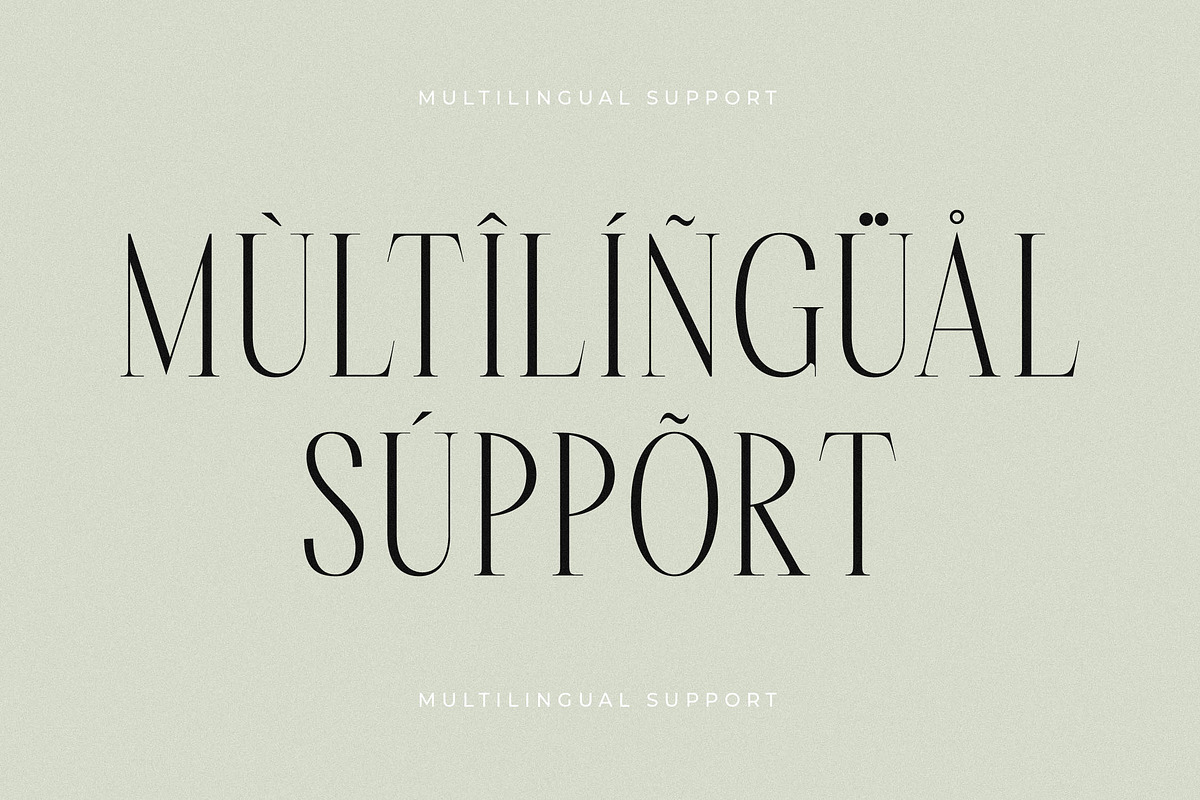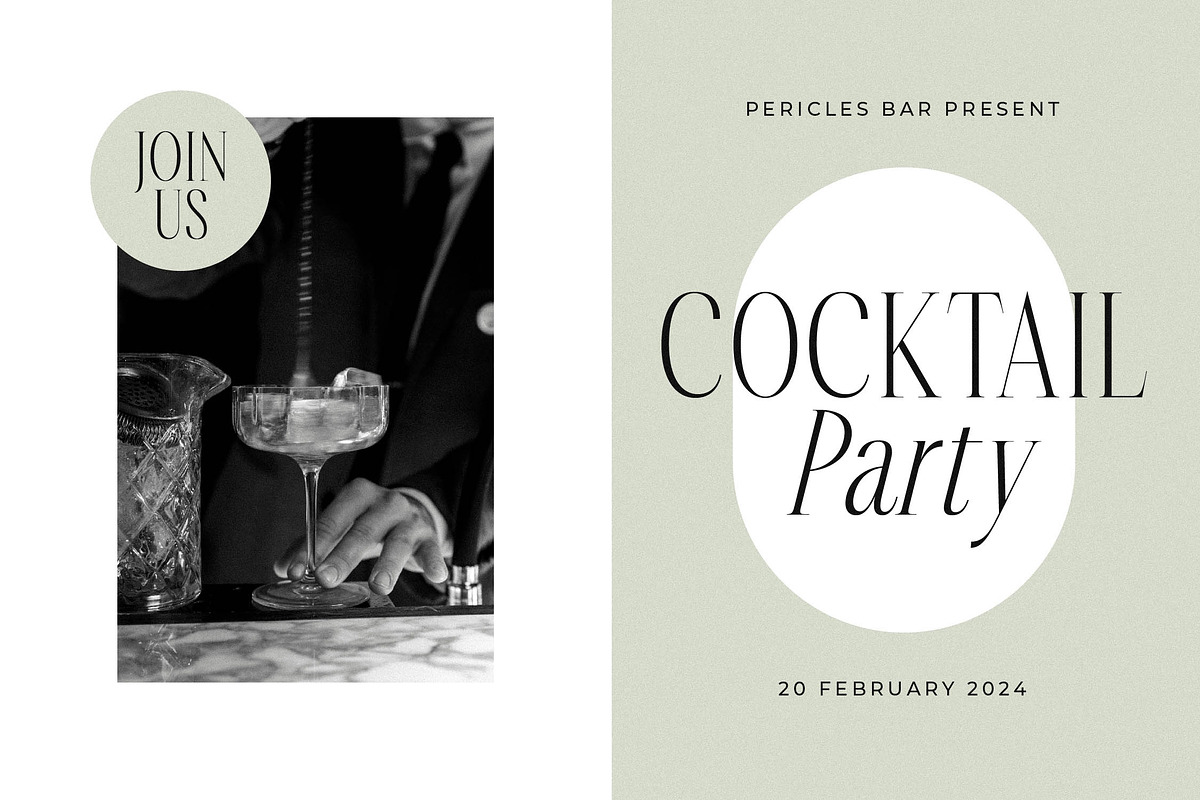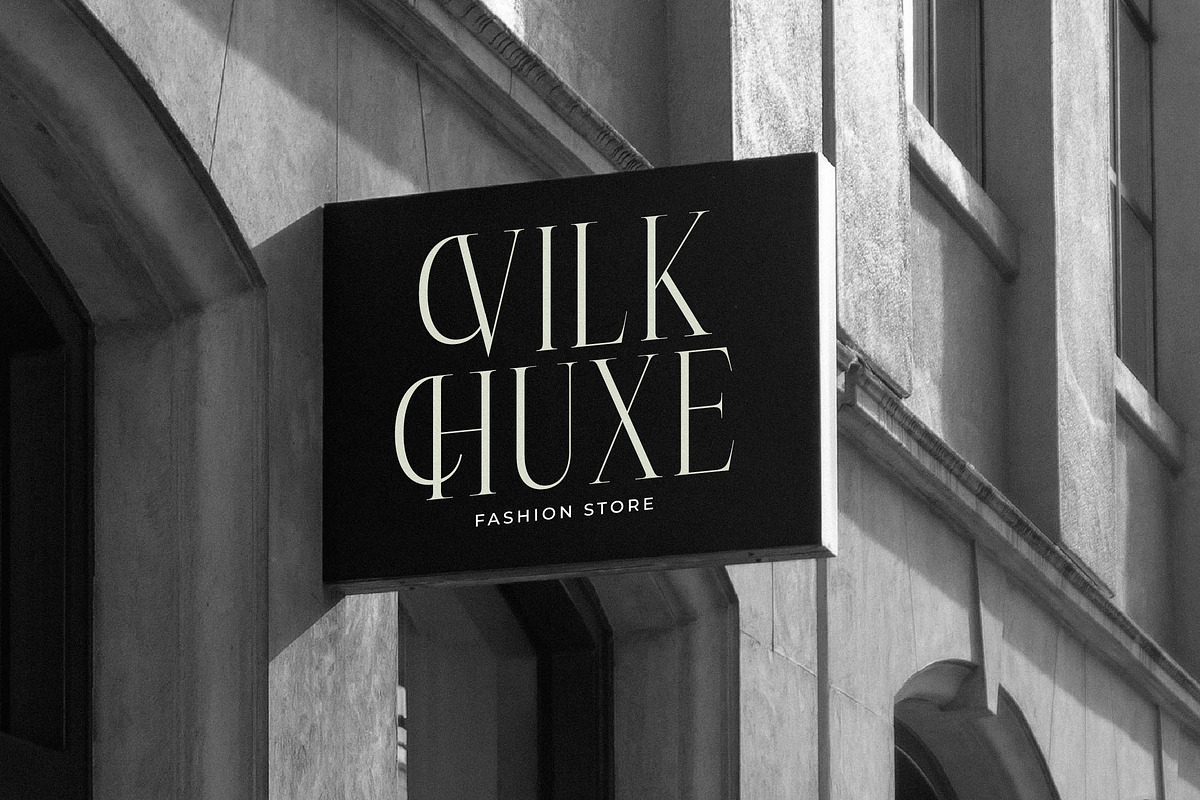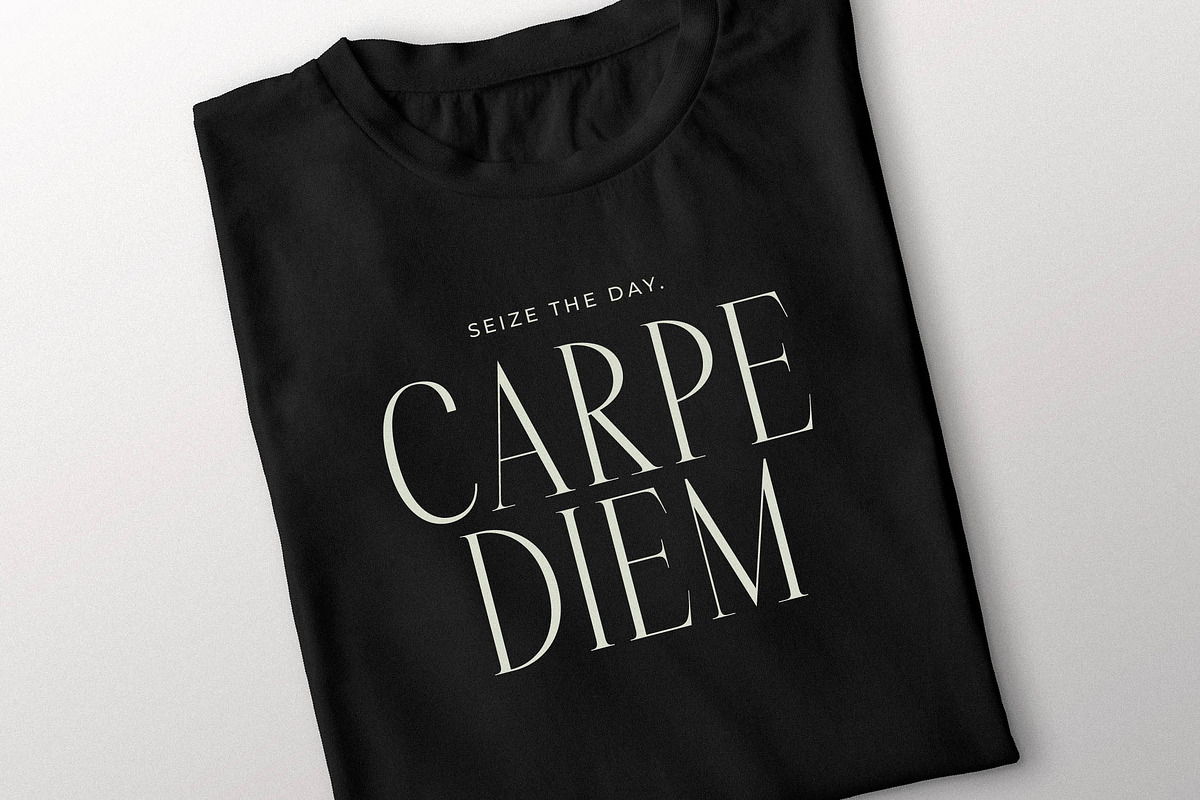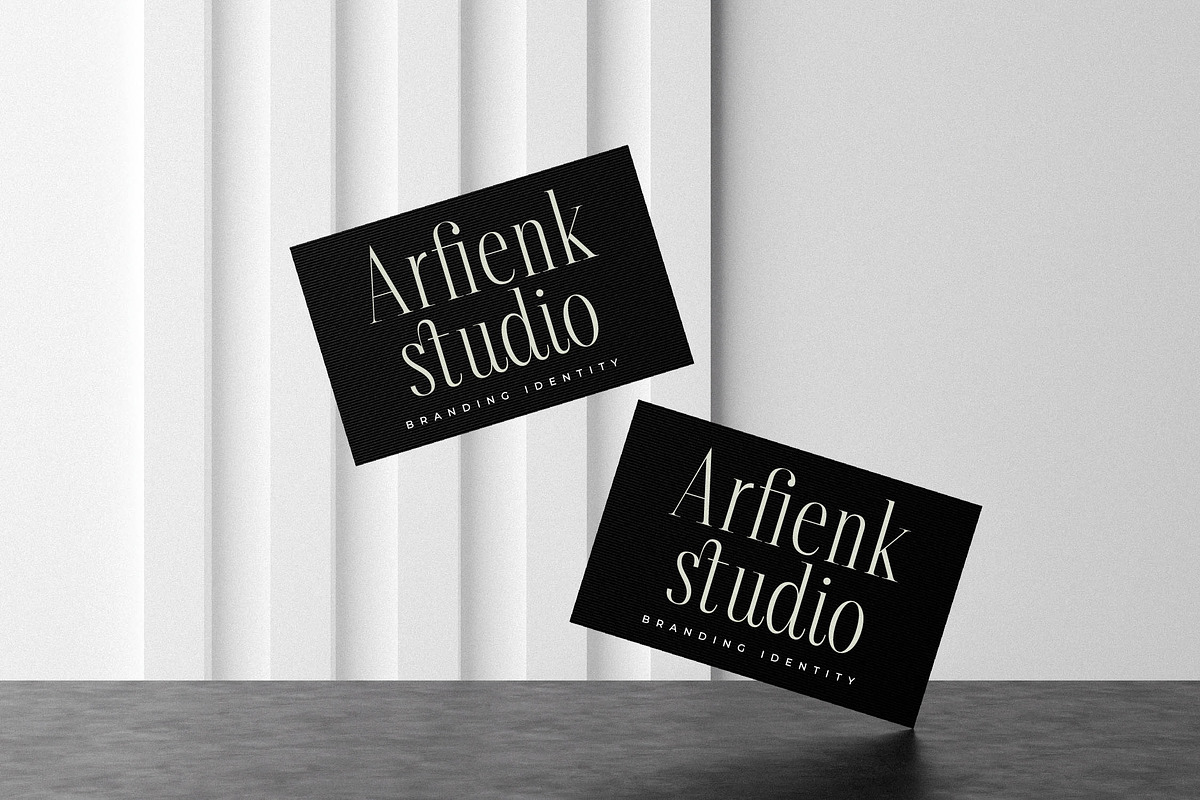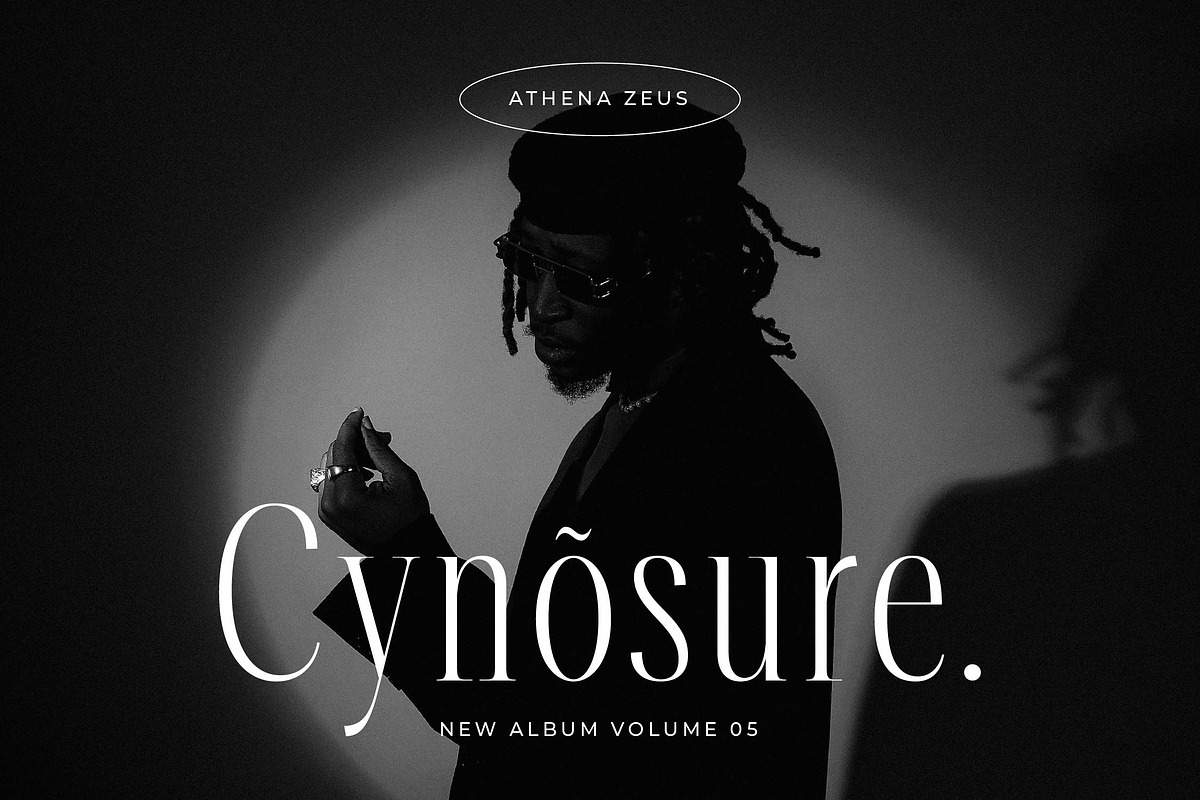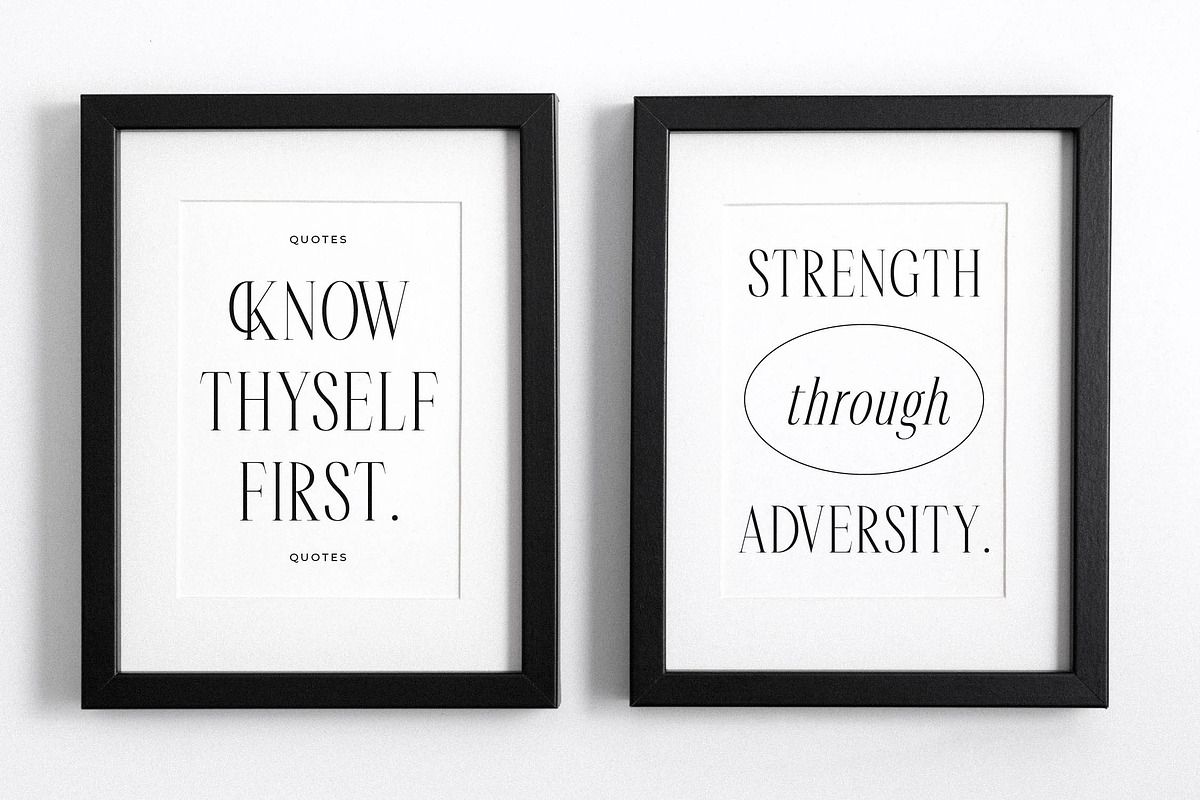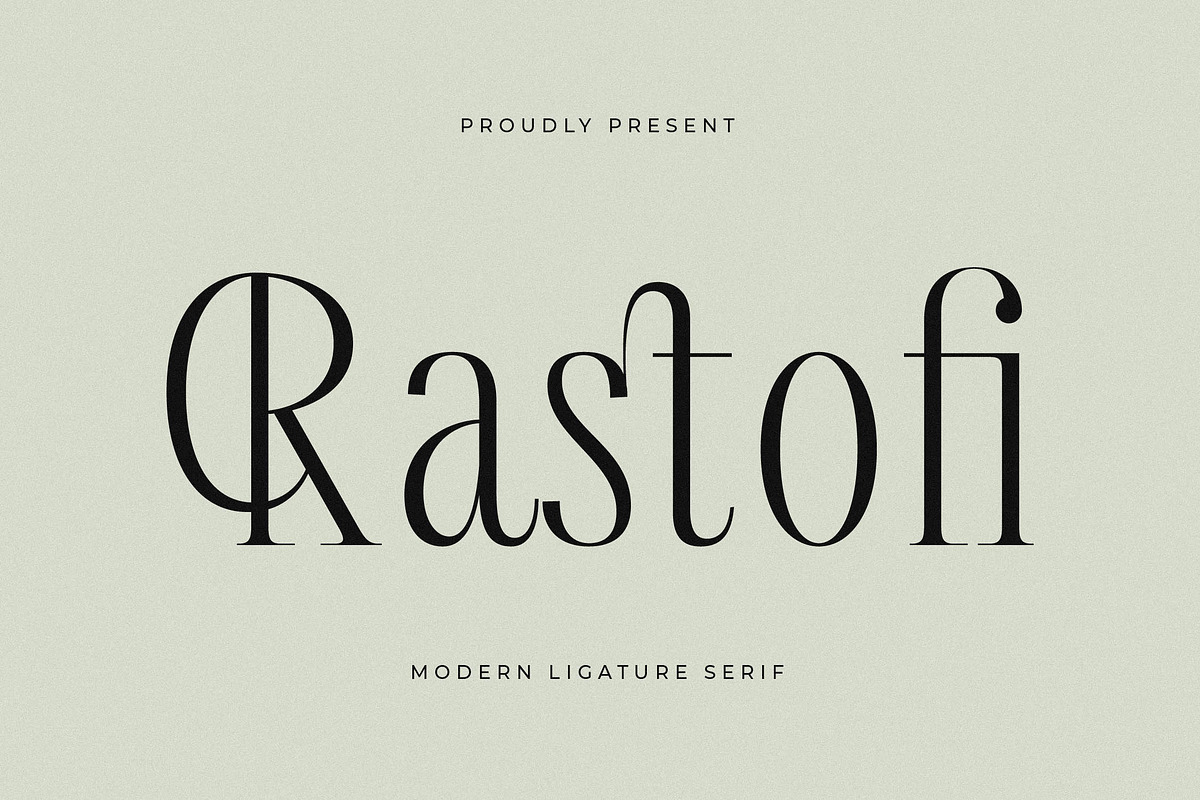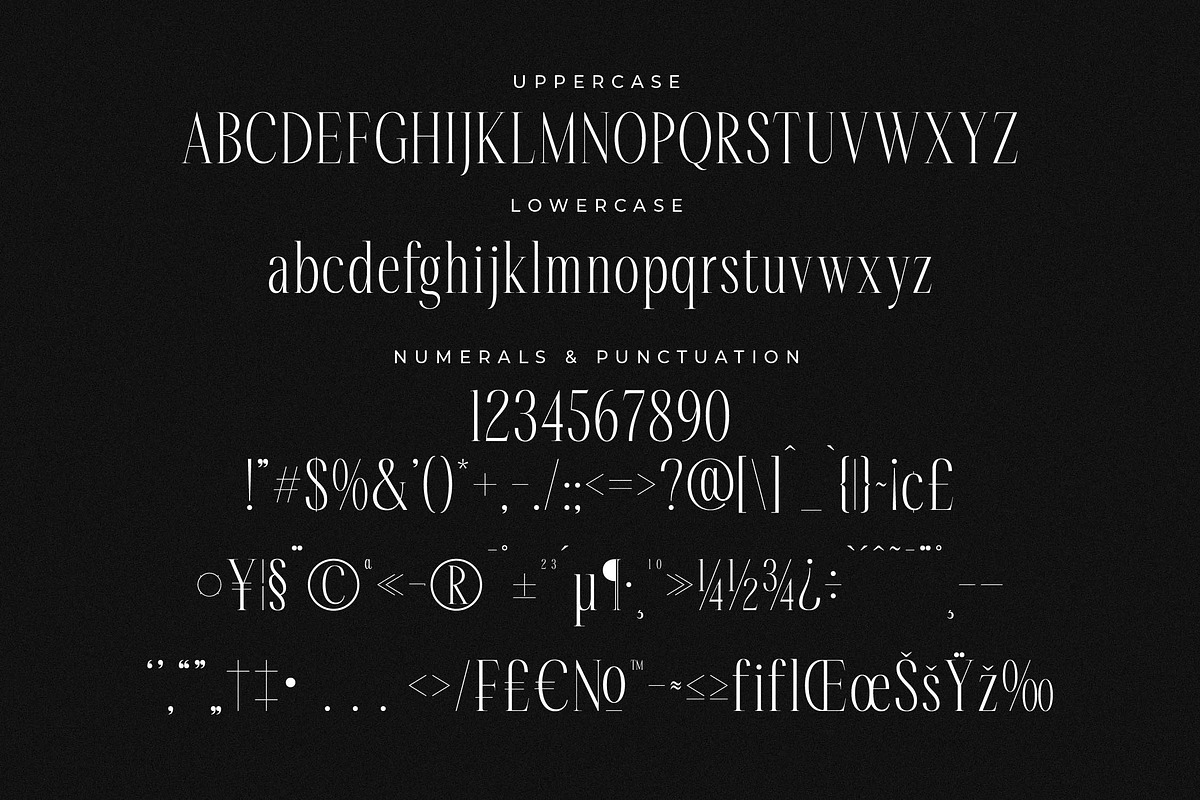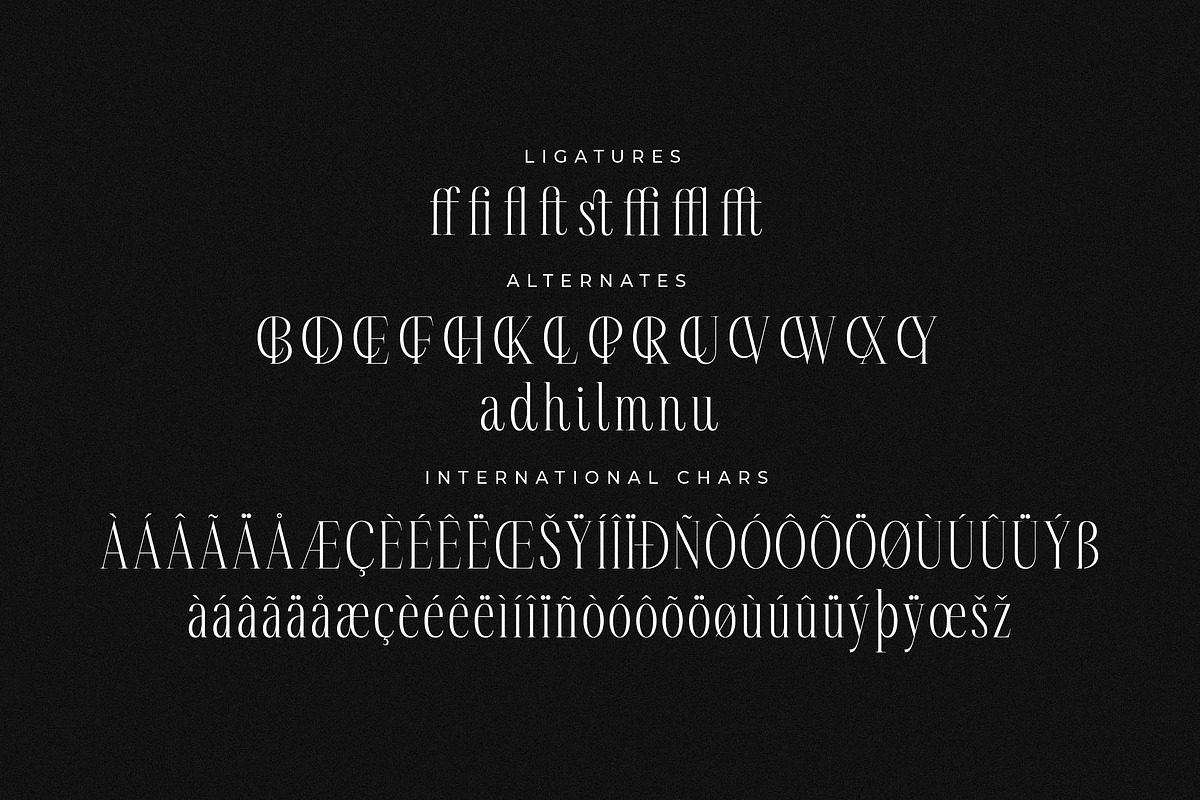
Rastofi Modern Ligature Serif
Rastofi – Modern Ligature Serif , from Letterena, is a Luxury Serif font, suitable for any projects such as: logos, branding projects, homeware designs, product packaging, mugs, quotes, posters, shopping bags, t-shirts, book covers, name card, invitation cards, greeting cards, label, photography, watermark, special events, and all your other luxury and beautiful projects that need a Luxury serif taste.